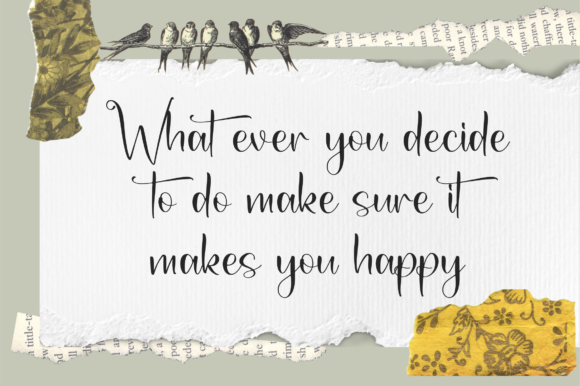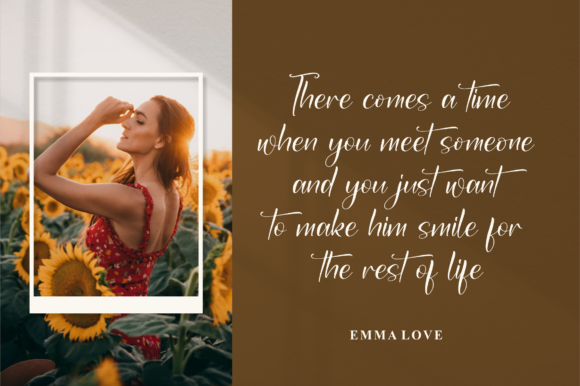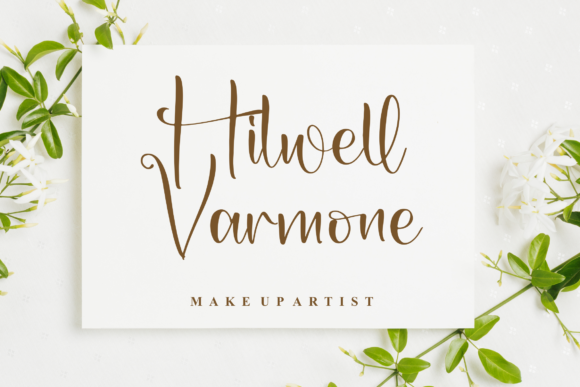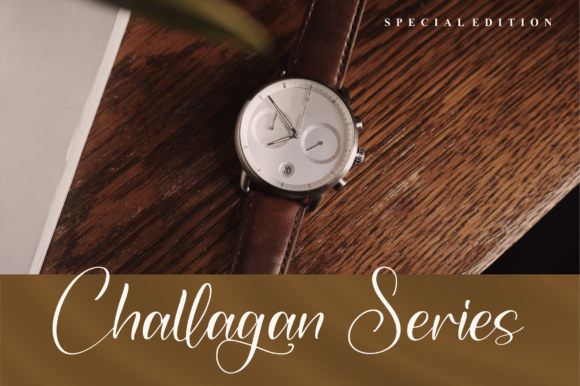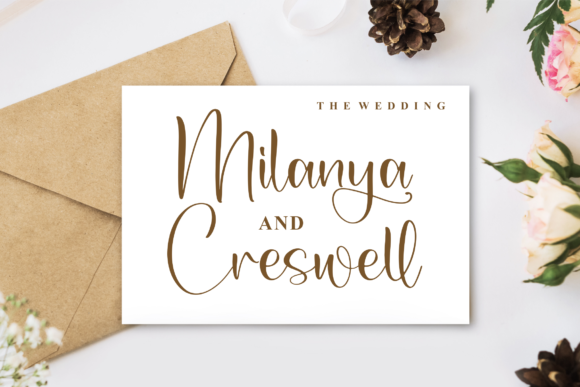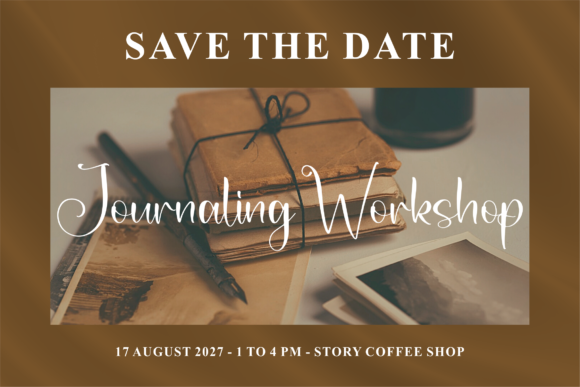
Introduction to Dittanya Font
Dittanya is a beautiful and light handwritten font with a unique feel and a stunning impact.
Key Features of Dittanya Font